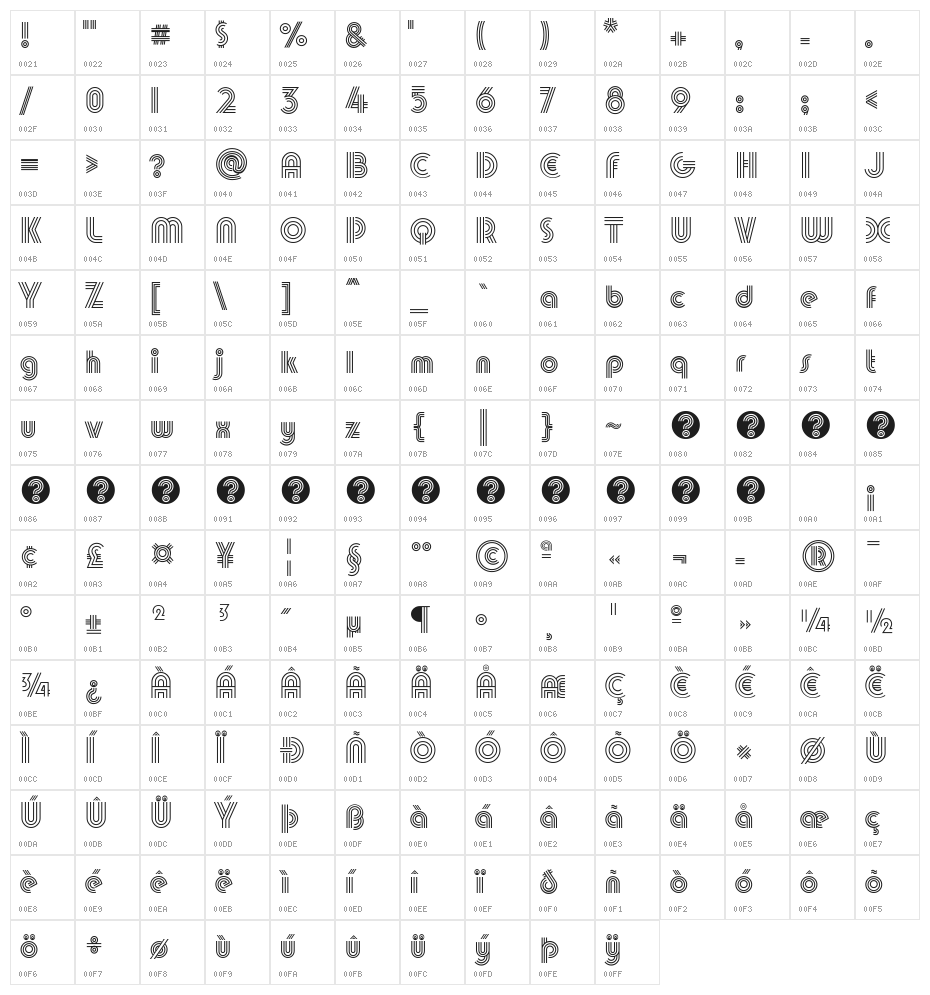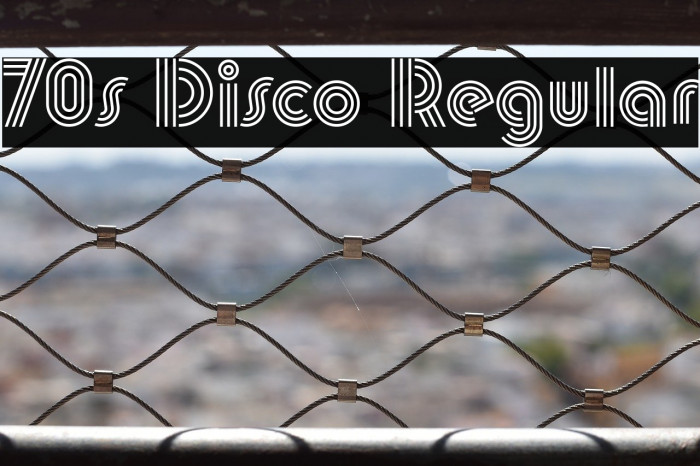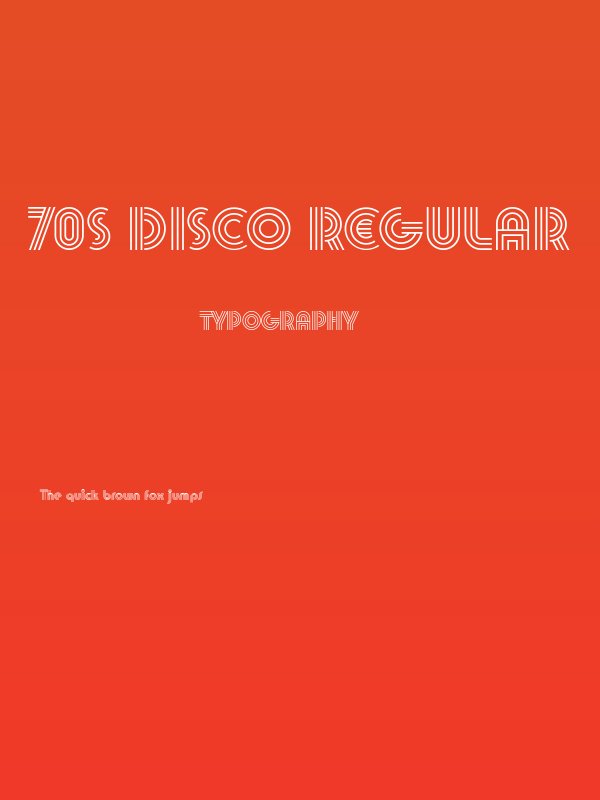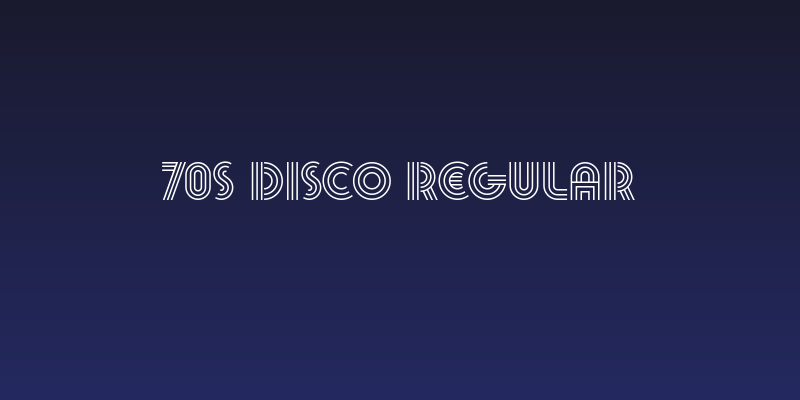
70s Disco Regular Font
70s Disco Regular Description
A decorative, multi-line font with a retro 70s disco vibe, featuring geometric shapes and a bold, playful style.
| Overall Style | Retro, Decorative |
| Proposed Projects | Posters, album covers, event flyers, retro-themed designs. |